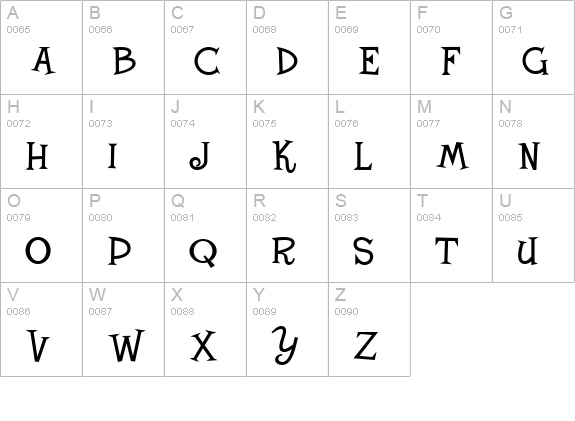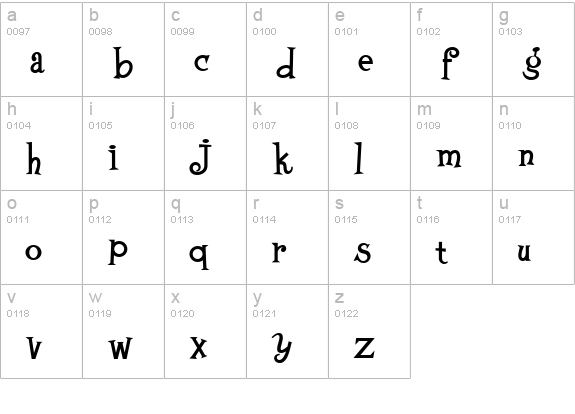
FloraDoraNF Font Details
FloraDoraNF font is a whimsical and charming typeface that exudes elegance and sophistication. Its delicate and intricate letterforms are reminiscent of vintage floral patterns, making it the perfect choice for projects that require a touch of femininity and grace. This font is free to download at FontsMarket.com, allowing designers and creatives to easily access and use it in their projects without any cost. With its unique style and versatile design, FloraDoraNF font is sure to add a touch of beauty and flair to any design project. Whether used for invitations, branding, or packaging, this font is a must-have for anyone looking to add a touch of elegance to their work.